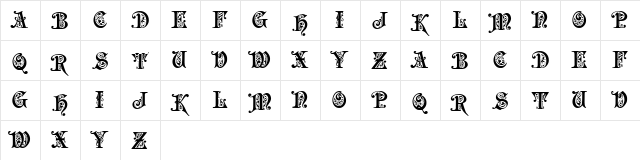
Preciosa Regular
Design Context for Preciosa Typeface
Preciosa is a composed and adaptable typeface that performs quietly and consistently across a wide range of design contexts.